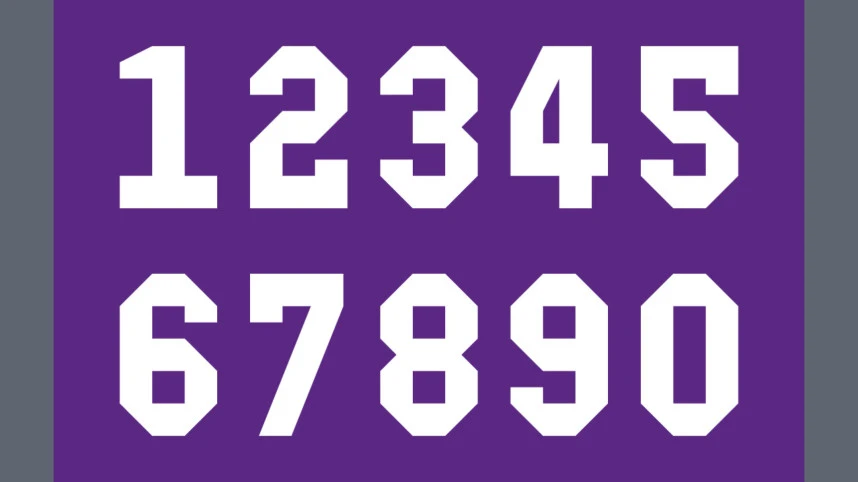
Delta Block Font is a bold display typeface with a sporty, industrial attitude and a distinctly retro arcade feel. Built from heavy geometric forms and sharp-cut angles, the font combines the energy of varsity lettering with the compact structure of futuristic block typography